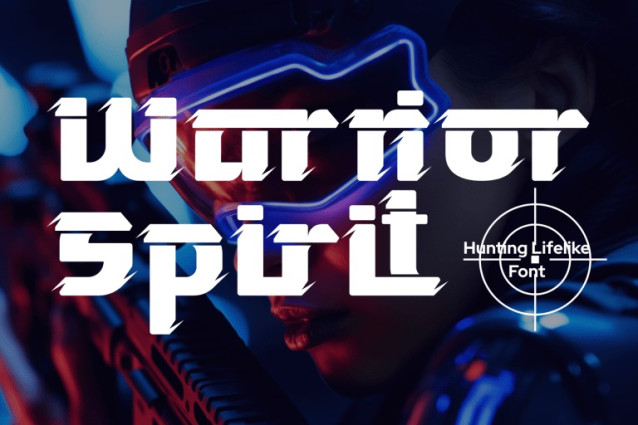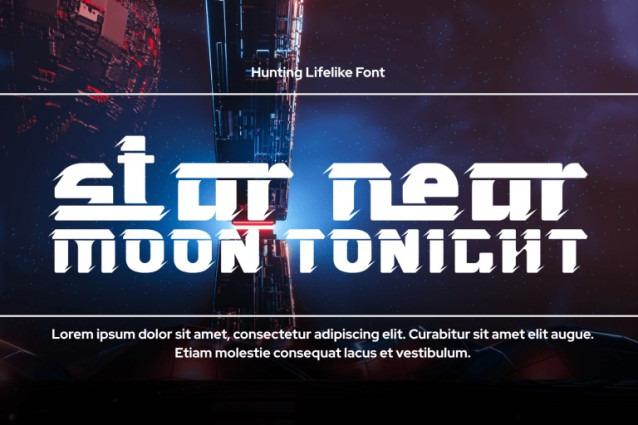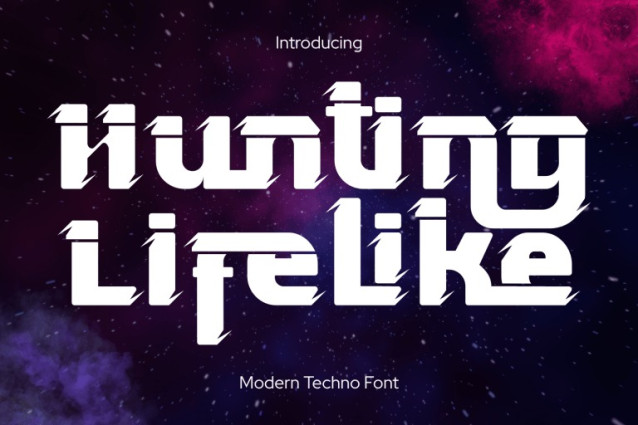
Hunting Lifelike Font
Hunting Lifelike – Futuristic Font is a futuristic display font that embodies speed, power, and cutting-edge design. Its bold geometric forms and sharp angular cuts deliver a strong high-tech aesthetic, perfect for projects that demand a modern and energetic look. Inspired by sci-fi and cyberpunk culture, this font injects a sense of innovation and futuristic identity into your designs. Ideal for sci-fi posters, video game titles, technology branding, album covers, and cinematic visuals, Hunting Lifelike ensures your typography makes a bold statement.
Uppercase & Lowercase Letters
~100 Special Ligatures
Accented Characters for multilingual support
Unique futuristic glyph styling
🔤About 100 ligatures combined with Stylistic Alternates Font: